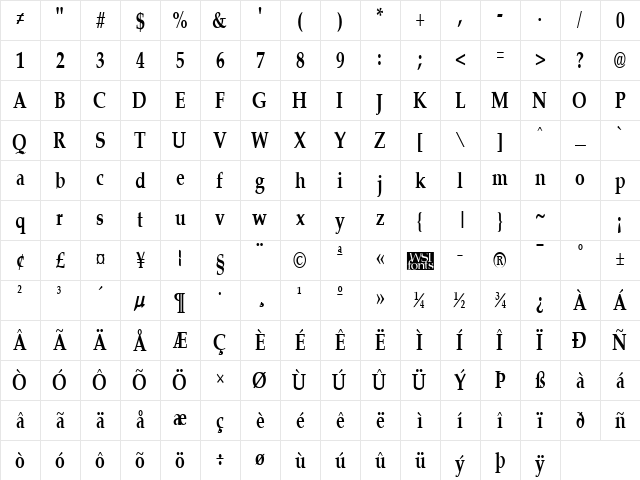
PalisadeCondensed Bold Free Font
PalisadeCondensed Bold
PalisadeCondensed Family
PalisadeCondensed Bold
Design Context for PalisadeCondensed
PalisadeCondensed is a composed and adaptable typeface that performs quietly and consistently across a wide range of design contexts. Its bold stroke weight gives it real presence on the page. Its narrow stance lets it pack a punch even in space-constrained designs.